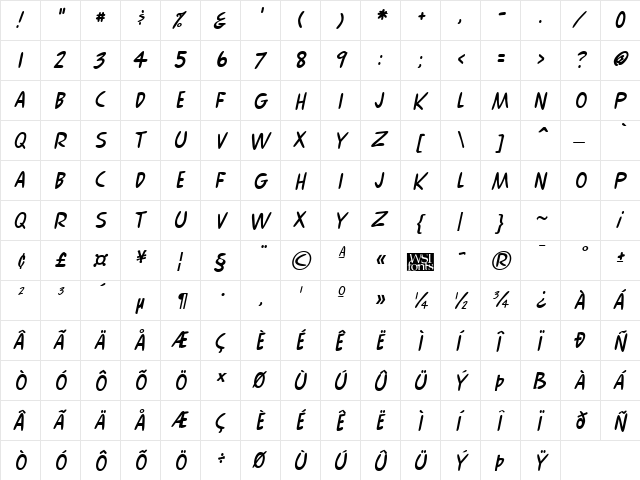
Comix Italic
Design Context for Comix Typeface
Comix is a composed and adaptable typeface that performs quietly and consistently across a wide range of design contexts. The slanted form adds forward momentum and visual energy.
Pro Tip: Use Comix for emphasis, pull quotes, and subheadings where its slanted energy can add rhythm to the layout.